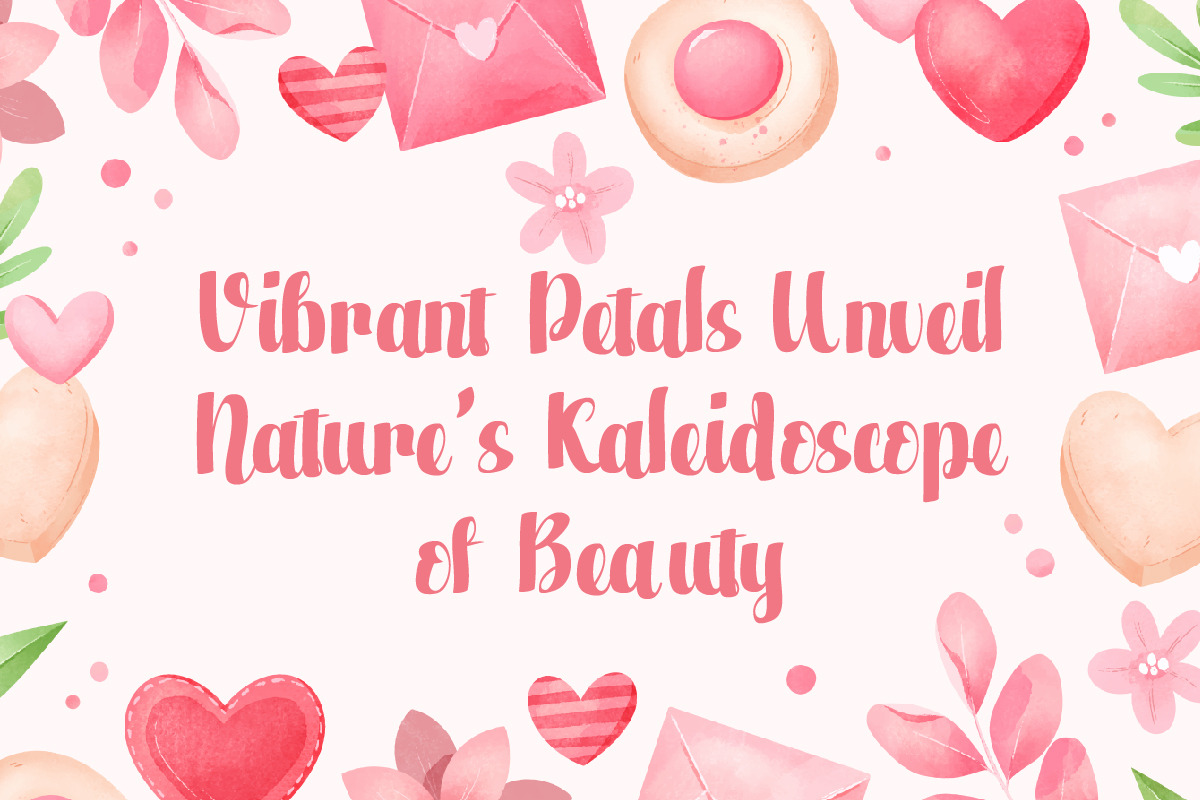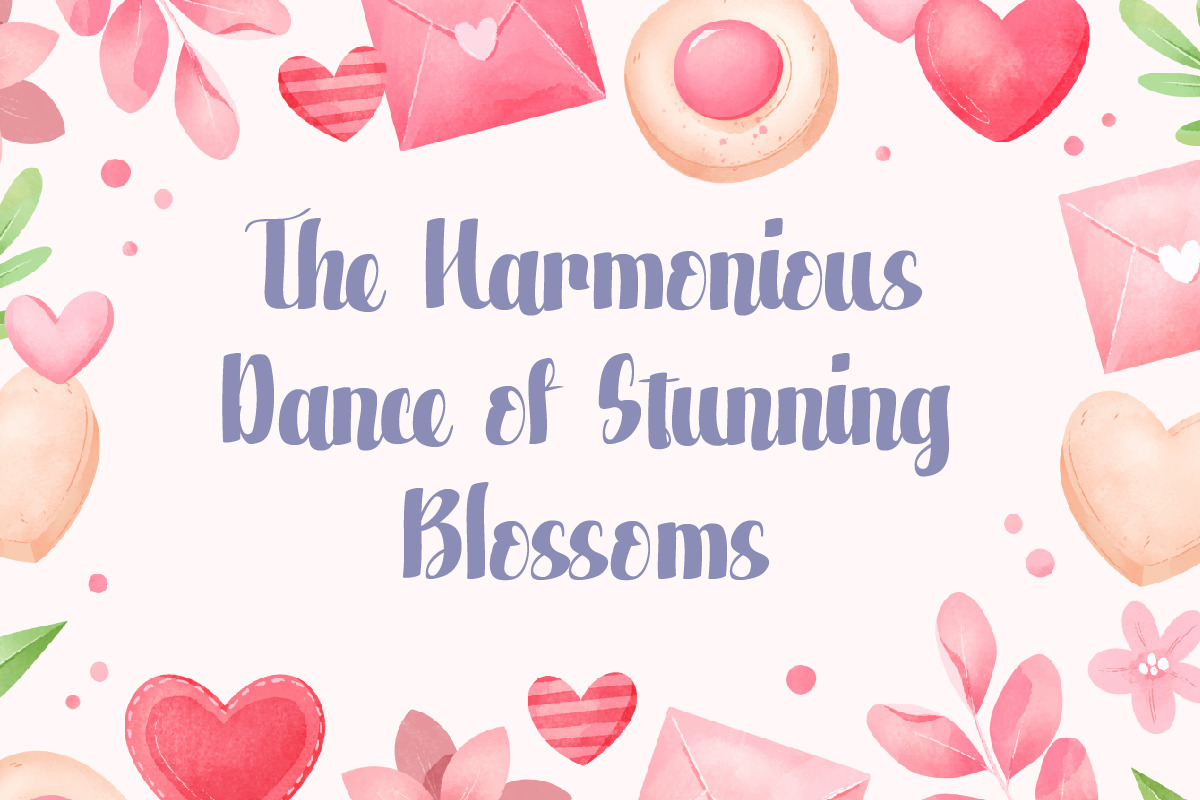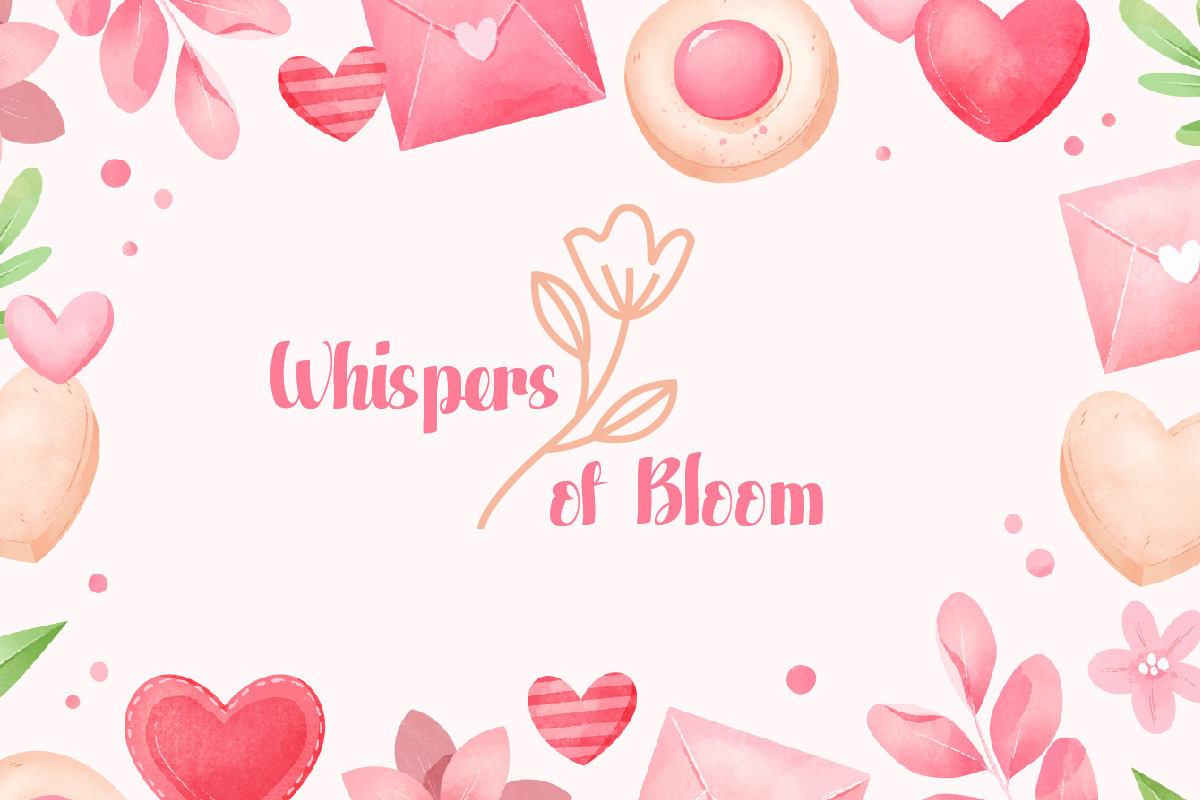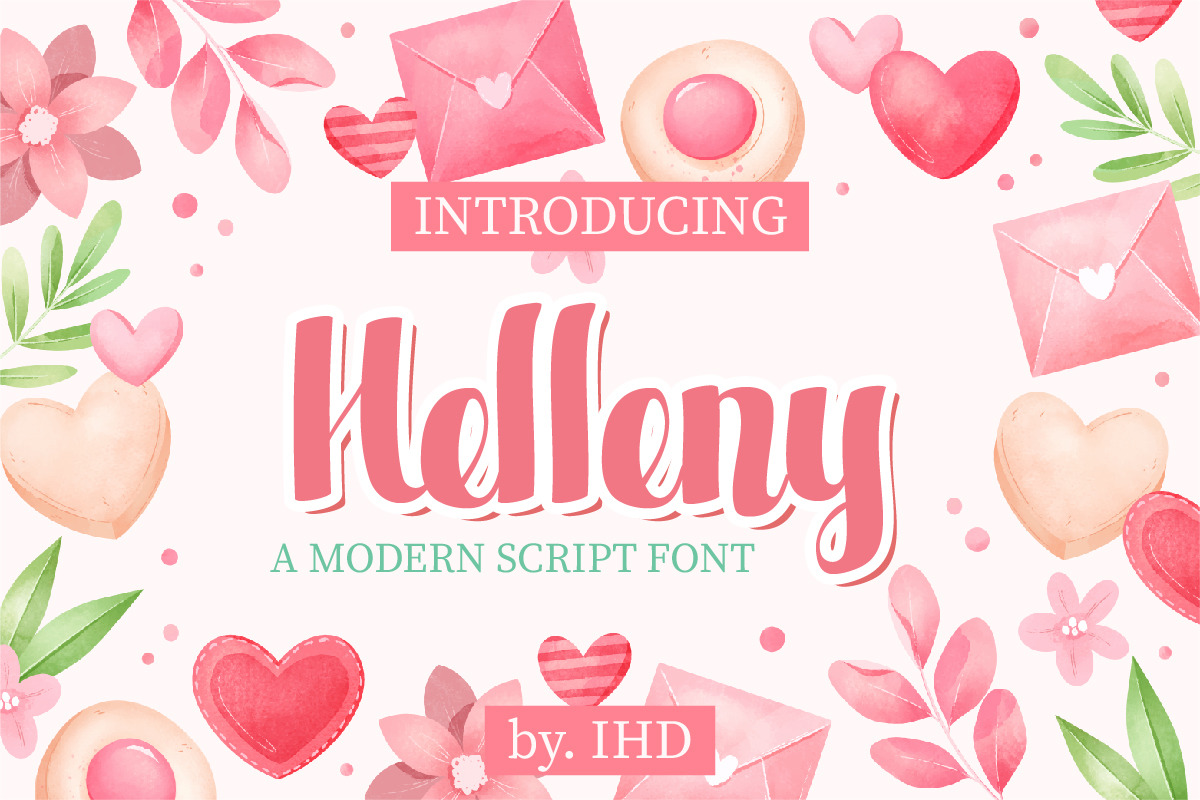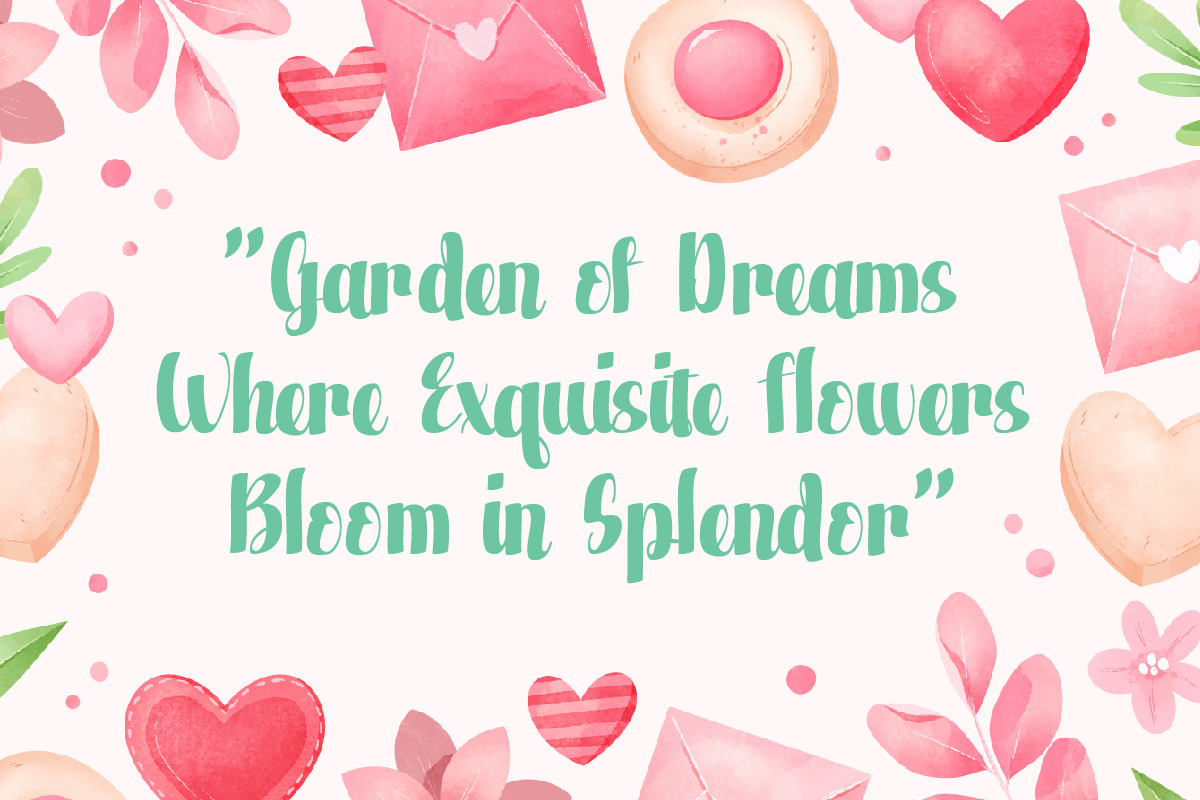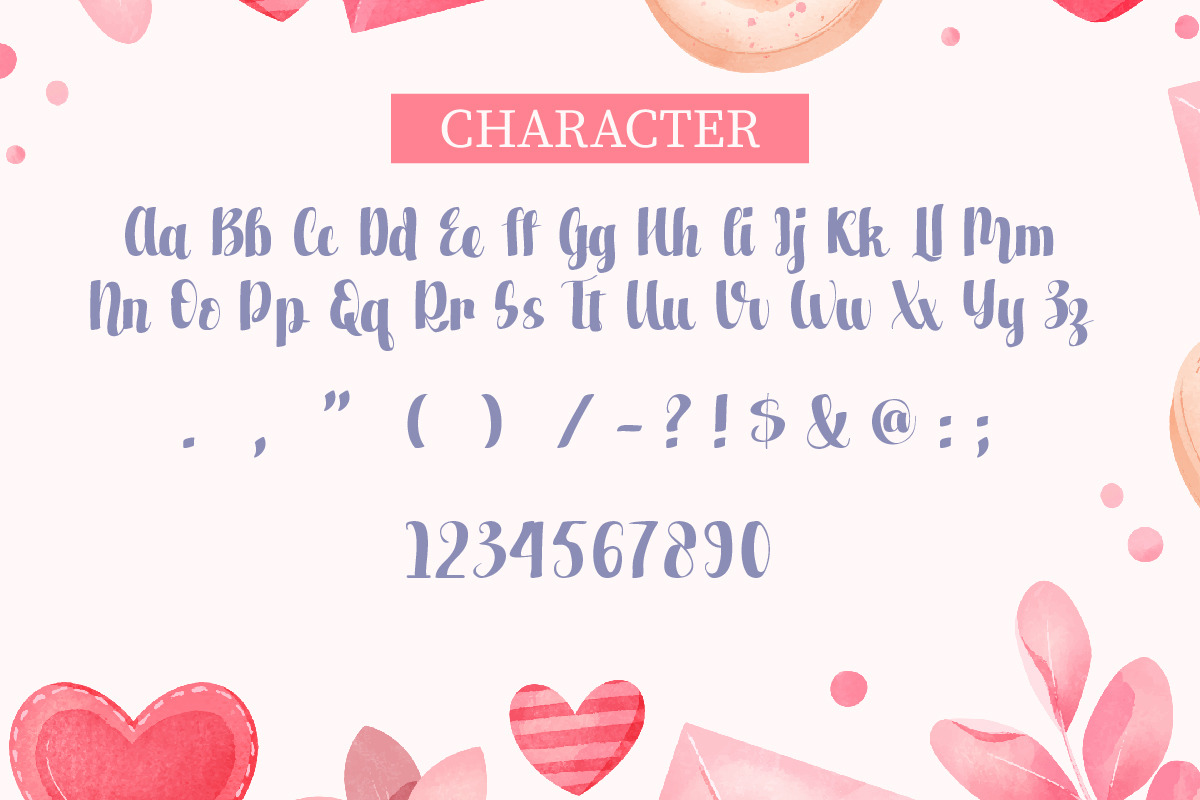
Helleny a Modern Script Font
Helleny a Modern Script Font is our new item suitable for your Posters.
Great for Logo, Poster, Sticker, Jerseys, Invitation Card, Brochure, etc.